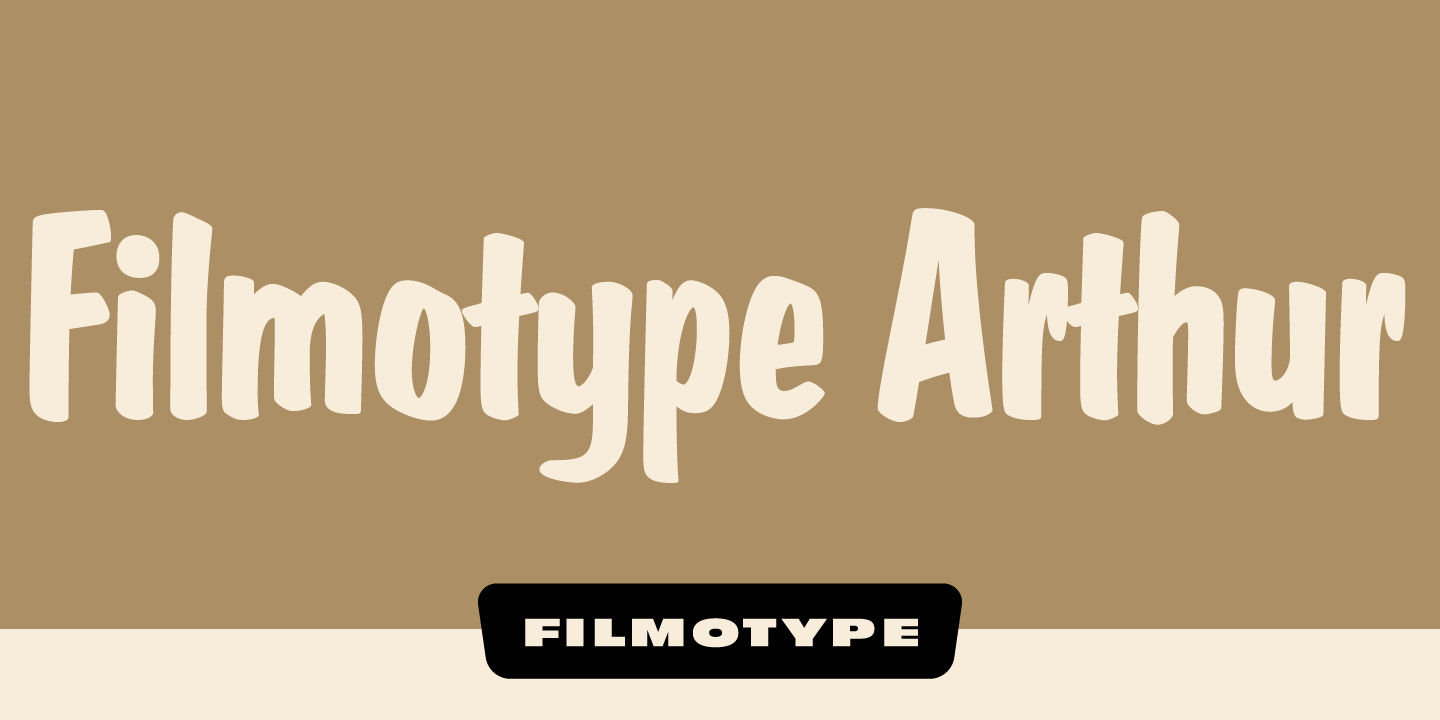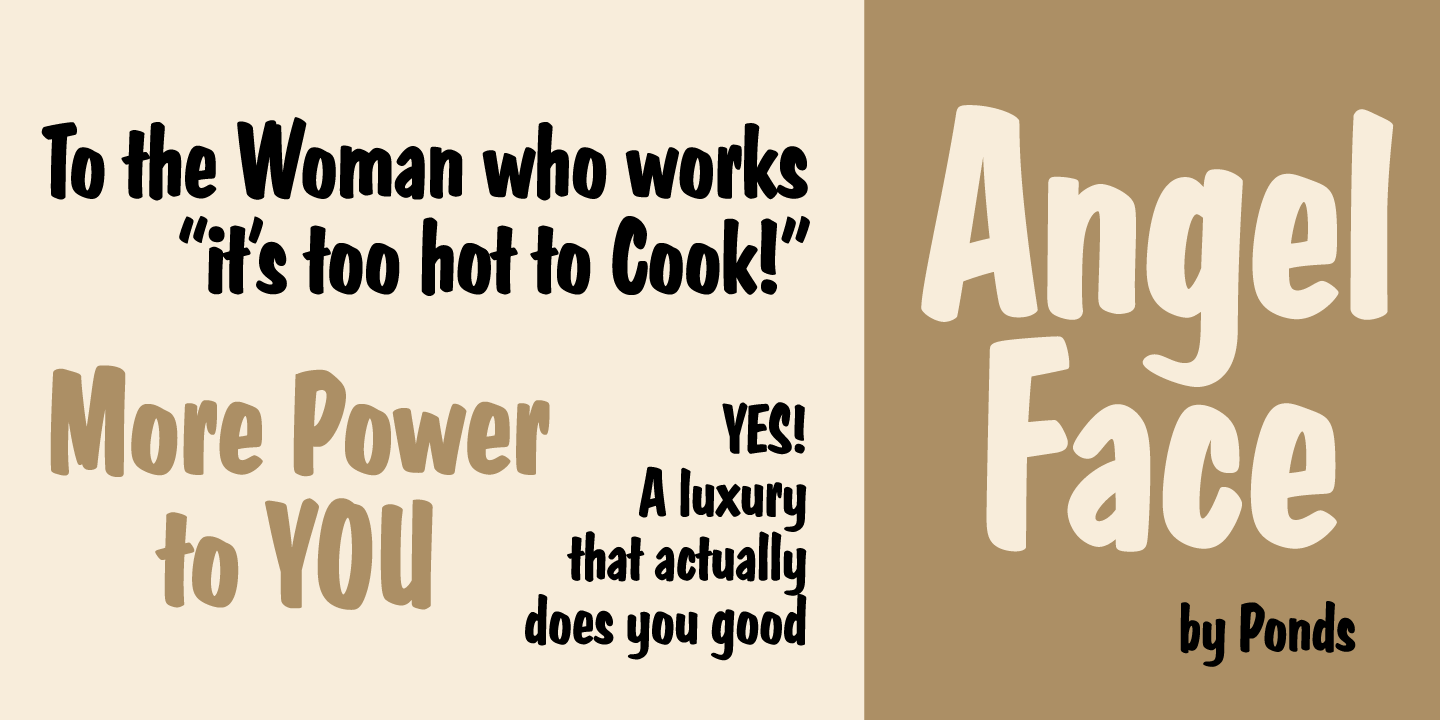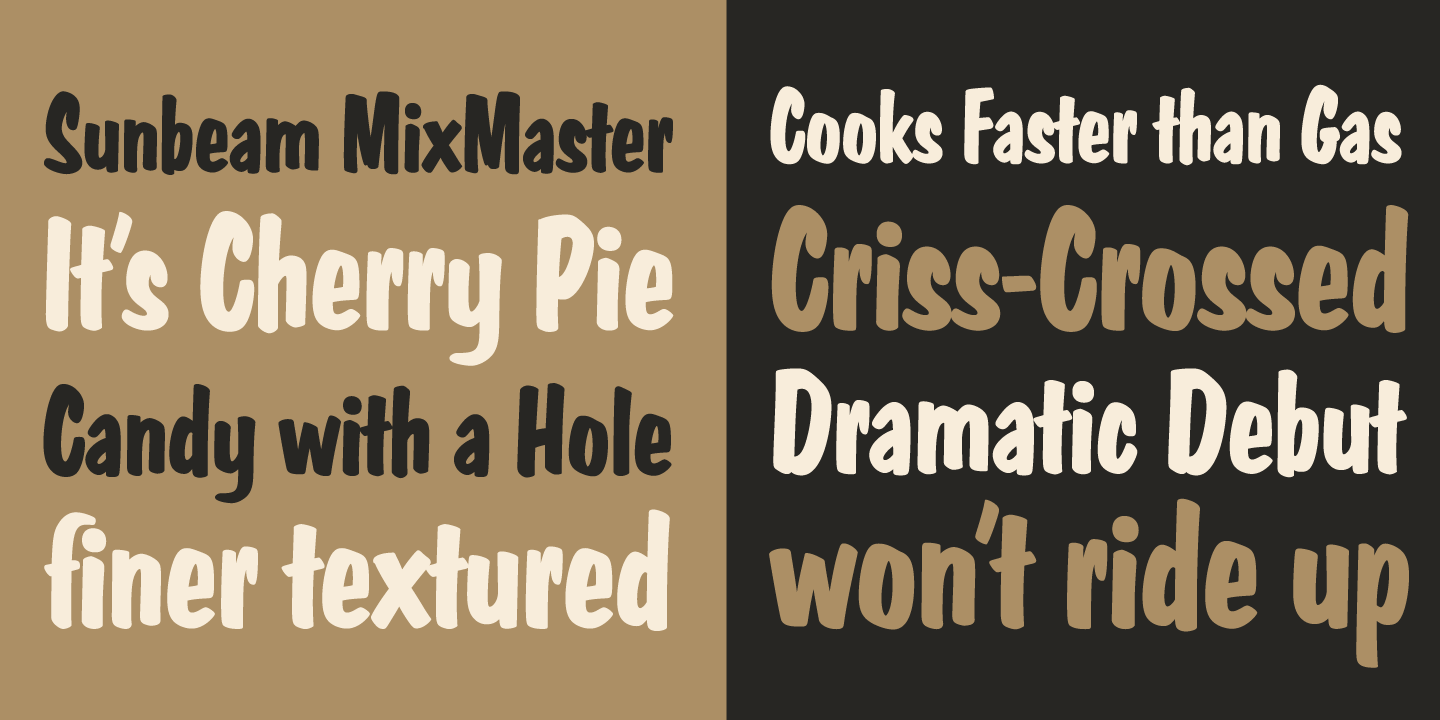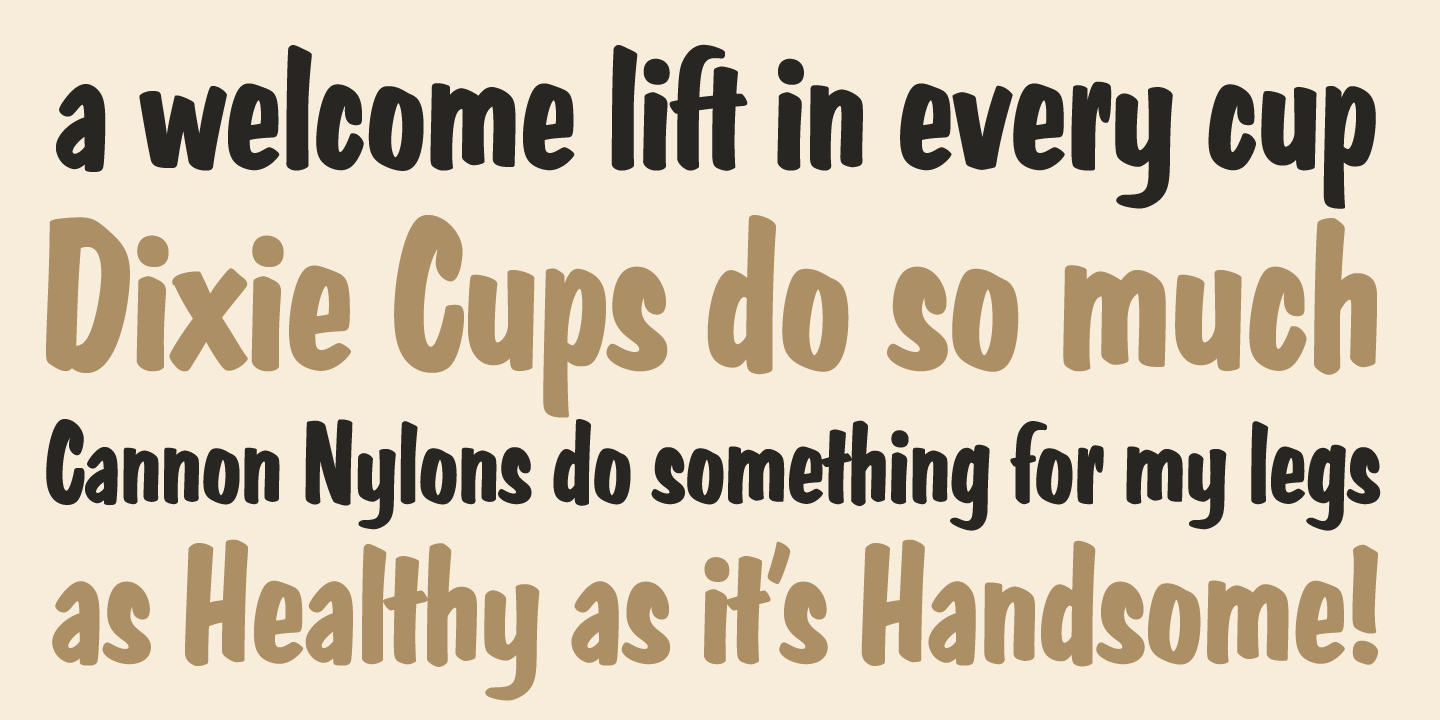
Filmotype Arthur
Likely inspired by the wildly popular Dom Casual typeface by Peter Dombrezian in 1951, Filmotype Arthur was introduced in the early 1950s as a condensed upright sho-card brush script for narrow applications where economy and style were paramount to the design while retaining legibility and easy readability.
Filmotype Arthur was developed from the original font filmstrips and includes a full international character complement, automatic fractionals, ordinals, and a host of alternate characters in dynamic OpenType format.
The Filmotype Arthur font family includes 424 glyphs.